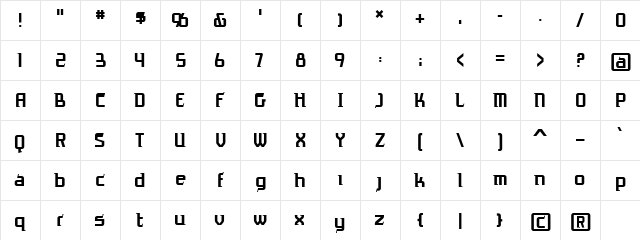
Antigrav BB Regular
| Foundry | Nate Piekos. Blambot.com |
| Designer | Nate Piekos |
Design Context for Antigrav BB Typeface
Antigrav BB is a composed and adaptable typeface that performs quietly and consistently across a wide range of design contexts.